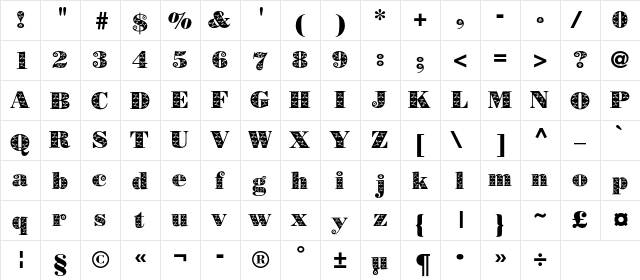
BorjomiDecorAC Regular Font Preview
BorjomiDecorAC Regular
BorjomiDecorAC Regular Font Details
Design Context for BorjomiDecorAC Typeface
BorjomiDecorAC is a composed and adaptable typeface that performs quietly and consistently across a wide range of design contexts.